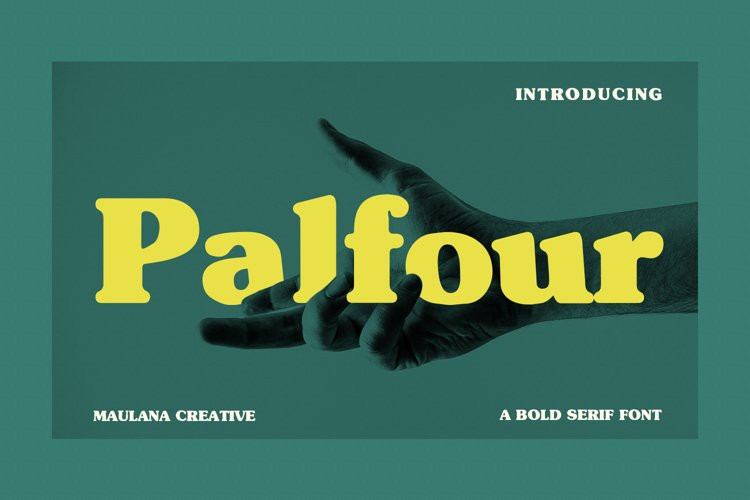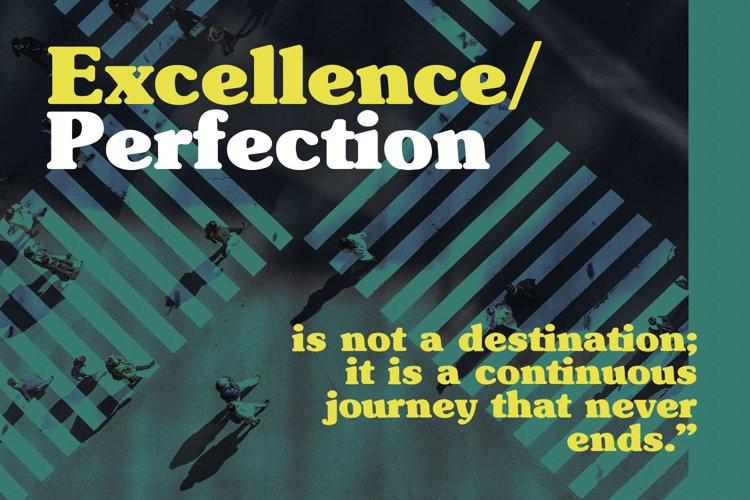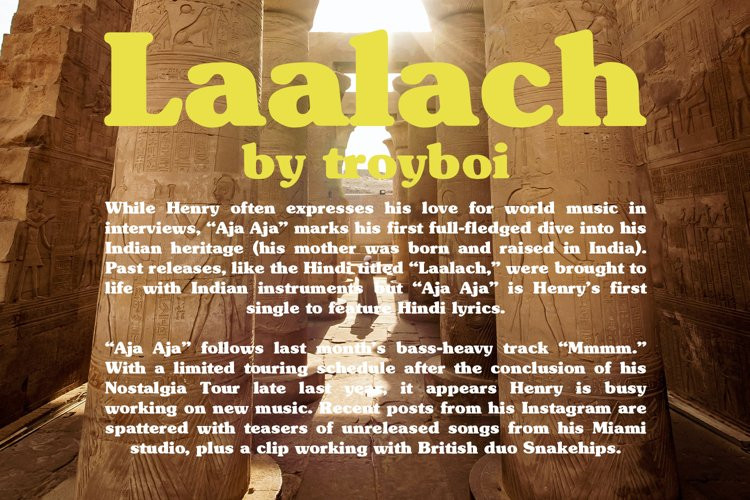
Palfour Font
Palfour FontPalfour is a classic bold serif display font. With bold stroke, fun character with a bit of ligatures and alternates. To give you an extra creative work. Palfour font support multilingual more than 100+ language. This font is good for logo design, Social media, Movie Titles, Books Titles, a short text even a long text letter and good for your secondary text font with sans or serif. Make a stunning work with Palfour font.